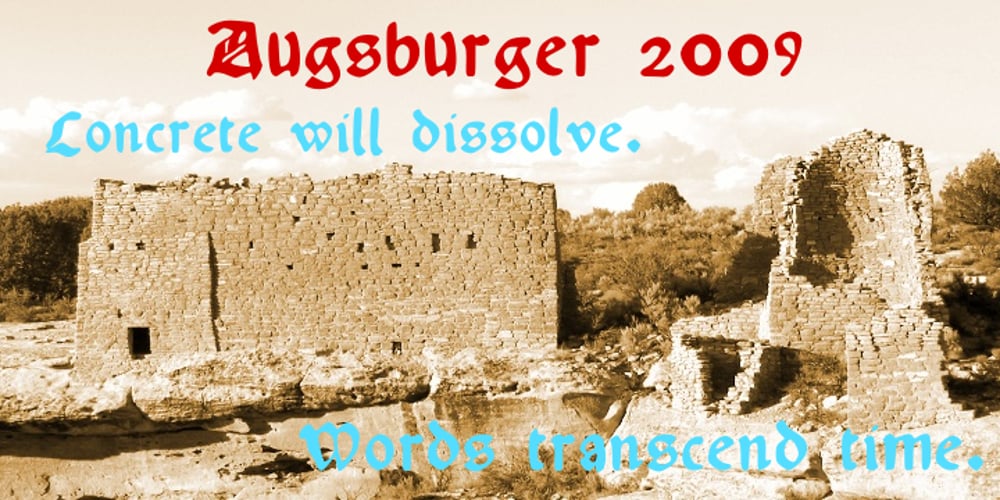
Augsburger2009 Font Family was designed by Shane Brandes and published by Proportional Lime. Augsburger2009 contains 1 styles and family package options. This typeface was inspired strongly by one of Ernhardt Ratdolt’s (1442-1528?) many beautiful typefaces. Mr. Ratdolt was a printer from the city of Augsburg, who had also worked for several years as a printer in Venice. He made many advances in printing technique and technology, including the decorated title page. Early books have a mysterious rhythm to the appearance of the text, due to small variances in letters caused by casting irregularities and ink transfer from the press. This supposed defect, which is present in this typeface, gives a pleasing effect when compared to the sterile regularity of modern printing technology. This font has been released as version 2.0 with over two hundred additional characters and improved metrics.